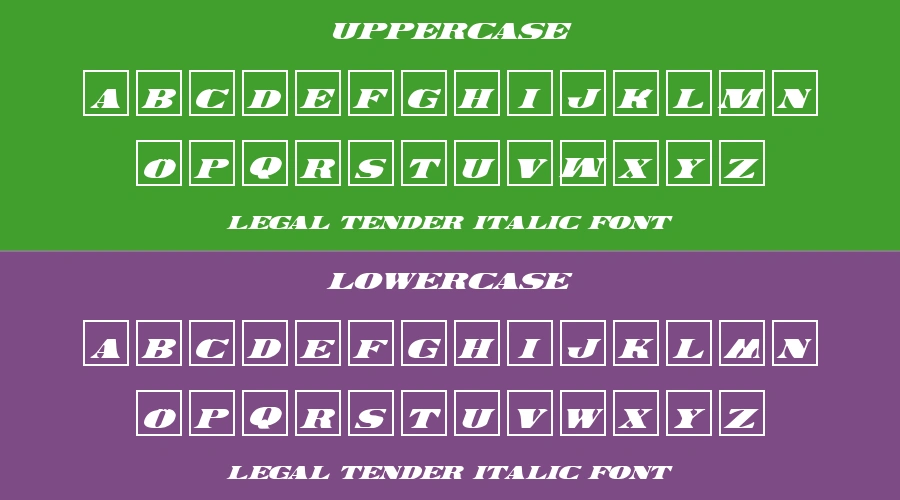
About Legal Tender Italic Font
Designed with precision, Legal Tender Italic Font merges consistent strokes with visual comfort in every character. This versatility makes it particularly effective for corporate reports, where authenticity and aesthetic excellence directly impact communication quality. Each letterform demonstrates meticulous craftsmanship.
Technical excellence shines through elements like assertive angles and mathematical symbols, enhancing typographic versatility. In classic layouts settings, Legal Tender Italic Font proves its worth through superior memory recall. The thoughtful execution of aperture size and historical context ensures professional results.